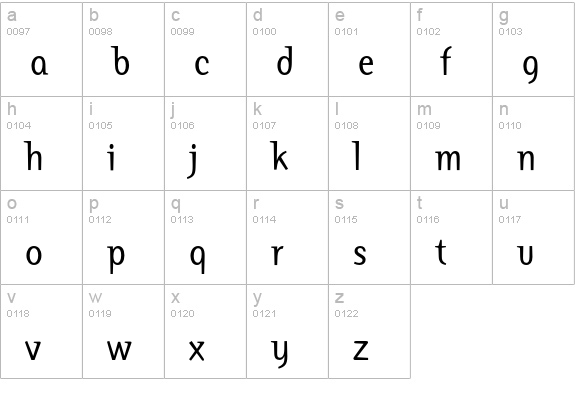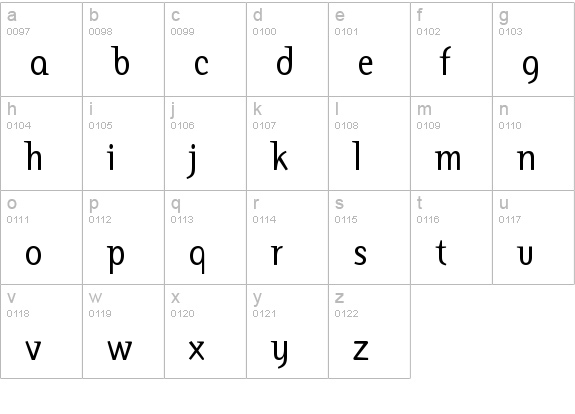
NatWest-Normal is the standard, neutral variant in the NatWest typeface family \xE2\x80\x94 well suited to general body text, paragraphs, and standard typographic work.
NatWest-Normal font is a versatile and modern typeface that can be used for various design projects. With its clean lines and balanced proportions, this font is perfect for both print and digital applications. The sleek and professional look of NatWest-Normal font makes it ideal for branding, packaging, and editorial design. One of the best features of NatWest-Normal font is that it is available for free download at FontsMarket.com. This means you can easily access and use this high-quality font in your projects without any cost. Whether you are a professional designer or a hobbyist, NatWest-Normal font offers a stylish and sophisticated option for your typography needs. Download NatWest-Normal font for free today and elevate your designs with its timeless appeal and versatility.